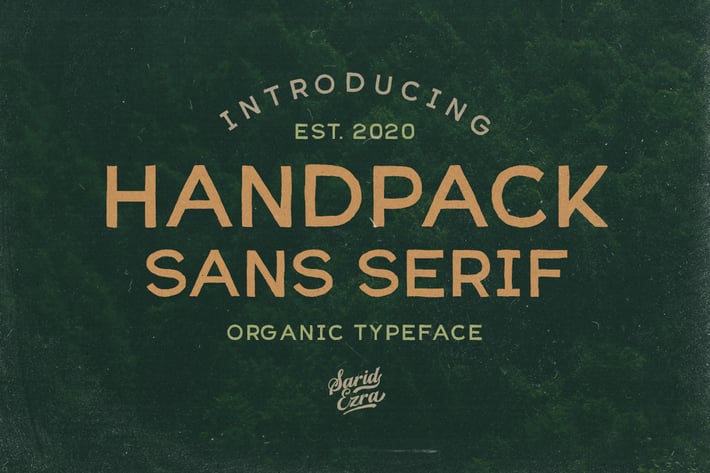
Handpack Sans - Organic Font
Handpack Sans is an organic and handmade font. You can use this font for every project. Suitable for branding logo and hand lettering. This sans also support multilingual, number and symbol. Also this font already PUA Encoded.